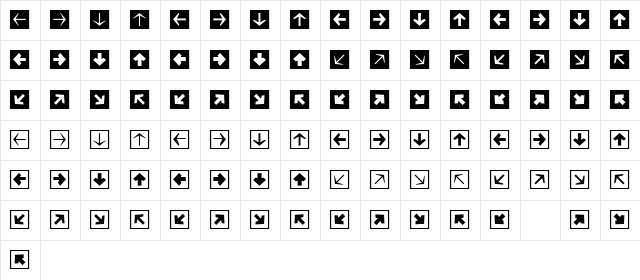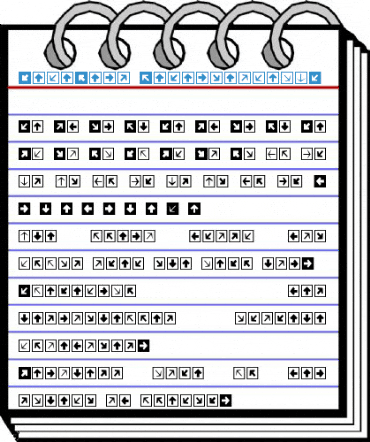
Complete Mini Pics Directional SA Regular glyph index. Displaying only characters natively supported by Mini Pics Directional SA Regular font.
Mini Pics Directional SA is a composed and adaptable typeface that performs quietly and consistently across a wide range of design contexts.
Pro Tip: Use Mini Pics Directional SA in both headline and body roles to test its range before committing to a single application.